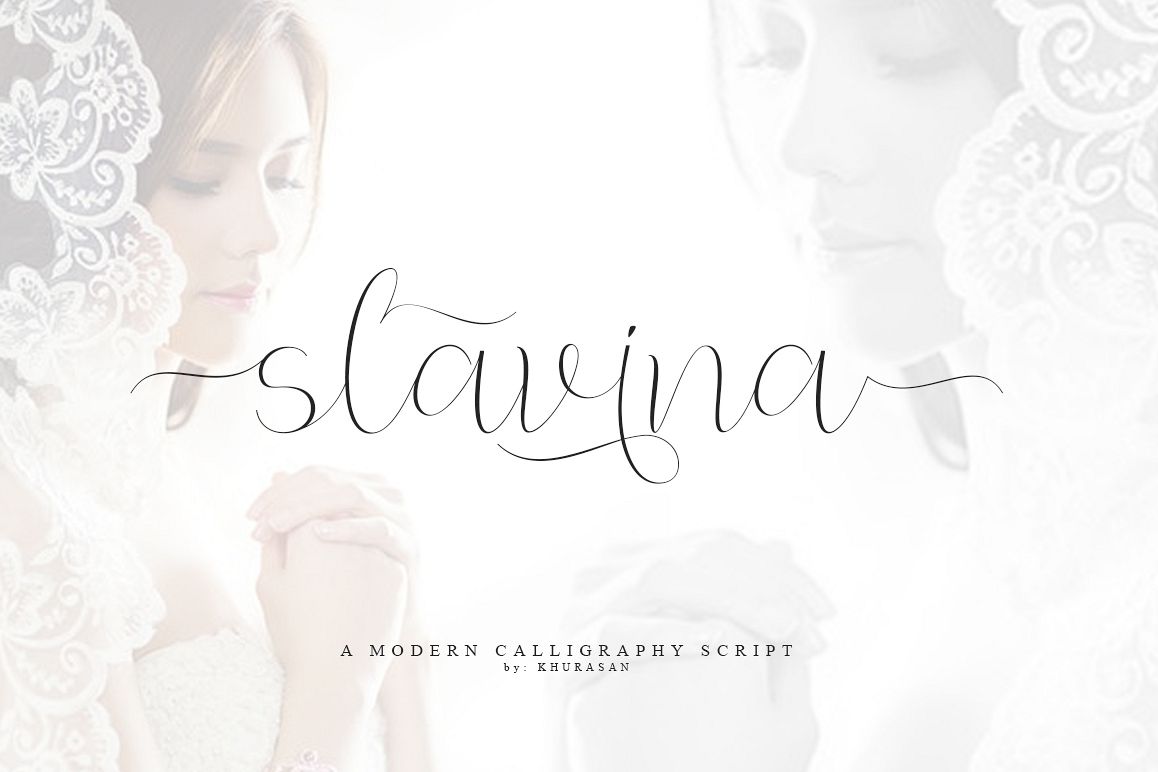
Slavina Script is a beautiful handmade script font, modern calligraphy & fresh typeface. Slavina Script suitable for logo, branding, invitation, greeting card, signature, poster and any design that you create.
Slavina Script Features:- Uppercase, Lowercase, Numerals, etc
- Stylistic alternates with number after character